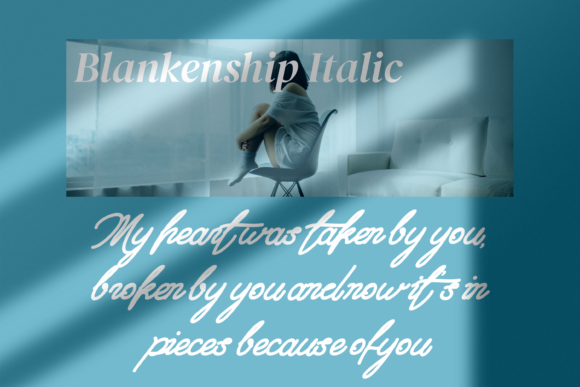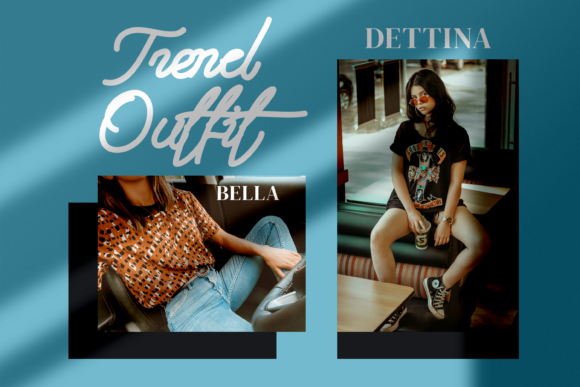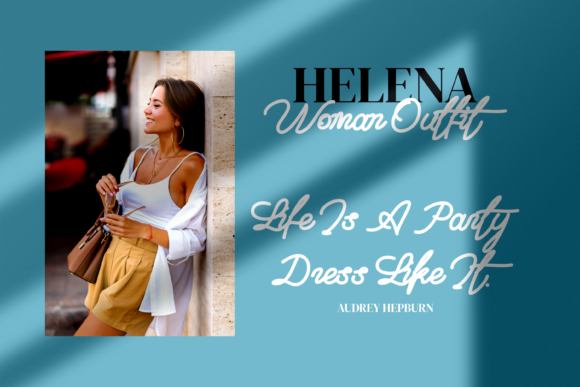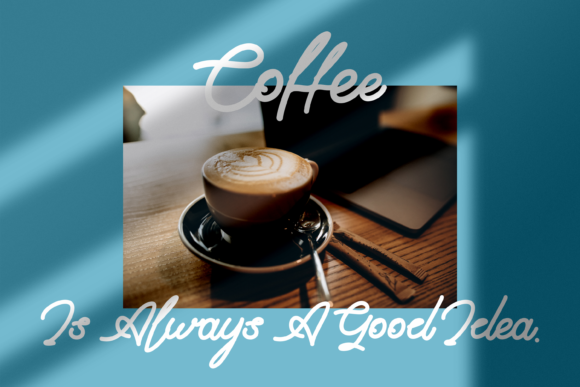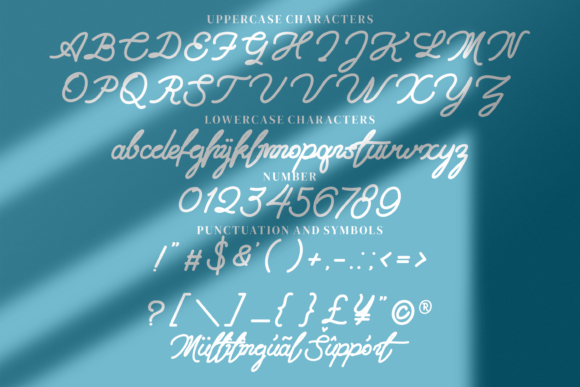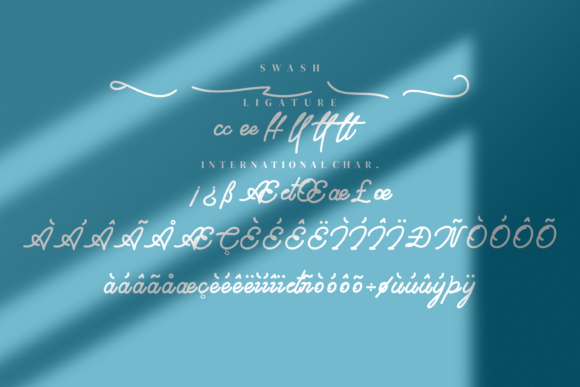
Unlock the Magic of Handwritten Style with Blankenship Font
Have you ever been brainstorming ideas for a special project, only to be stopped in your tracks by a perfect font that just captures the essence of your vision? That’s exactly what happened to me when I stumbled upon the stunning Blankenship Font. Its elegant script style is a perfect blend of sophistication and whimsy, making it a go-to choice for designers looking to add a personal touch to their designs.
Whether you’re designing wedding invitations, thank you cards, or business cards, the Blankenship Font is an excellent choice to elevate your design game. Its versatility and stylish look make it a valuable asset for any designer looking to add a handwritten touch to their projects. With the Blankenship Font, the possibilities are endless, and your designs are sure to stand out.
Blankenship Font Key Features
- Unique Characteristics: The font features a distinctive, elegant script style with a touch of vintage flair, making it perfect for creating a sophisticated and professional look.
- Font Style: The font comes in both regular and italic styles, offering flexibility and versatility for designers to create a range of visual effects and moods.
Blankenship Font Review
First off, I have to say that I was immediately drawn in by the Blankenship Font’s unique aesthetic. The ✨ bold, modern lines and the subtle rounded edges give it a certain je ne sais quoi that sets it apart from other fonts. I love how it looks on digital displays, especially when used for headings and titles.
One of the things that really works well for Blankenship is its versatility. It’s a great choice for both digital and print projects, and it can be used in a wide range of contexts, from fashion and beauty to tech and finance. I also appreciate how the font scales well, looking just as good at small sizes as it does at larger ones.
- ✨ Unique aesthetic with bold, modern lines
- ✨ Subtle rounded edges for a touch of elegance
- ✨ Versatile and suitable for various contexts
- ✨ Scales well for both digital and print projects
- ⚠️ May be too bold for some designs, potentially overpowering other elements
- ⚠️ Limited character set and language support
Overall, I think the Blankenship Font is a great addition to any designer’s toolkit. While it may not be perfect, its unique look and versatility make it a solid choice for a wide range of projects. With a little creativity, I’m sure it can be used to create some truly stunning designs.
Getting the Most Out of Blankenship Font
To get the most out of Blankenship Font, use it for:
- Headings and titles for a vintage or retro look.
- Displaying quotes or inspirational text.
- Adding a touch of elegance to your designs.
Blankenship Font is commonly used for:
- Graphic design projects and art pieces.
Alternatives to Blankenship Font
Playfair Display is an elegant, high-end serif font suitable for formal and luxurious designs. It features intricate details and ornate flourishes, making it perfect for headings and titles. When to use: Formal invitations, luxury branding, and high-end publications. Compared to Blankenship Font, Playfair Display is more ornate and luxurious, while Blankenship Font has a more vintage feel.
Great Vibes is a modern, elegant script font ideal for creative and artistic designs. It features a flowing, handwritten style with a touch of sophistication. When to use: Creative branding, wedding invitations, and artistic publications. Compared to Blankenship Font, Great Vibes is more modern and flowing, while Blankenship Font has a more vintage, distressed feel.